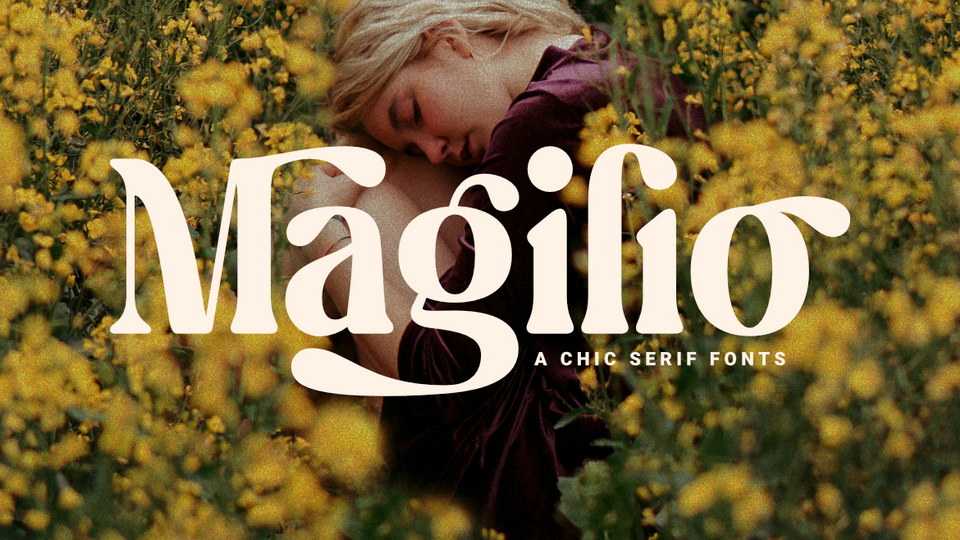
Download Magilio font, a chic serif typeface with beautiful and soft look and a contemporary style that can make your design projects look modern, elegant and luxurious.